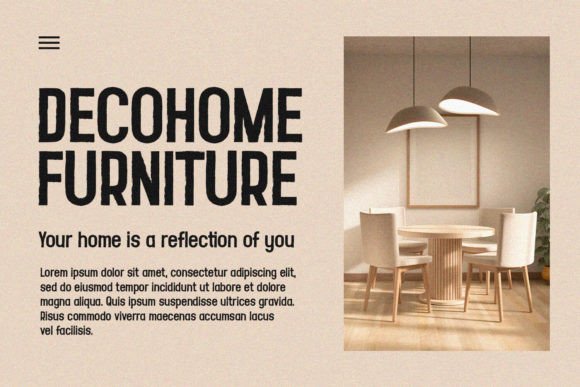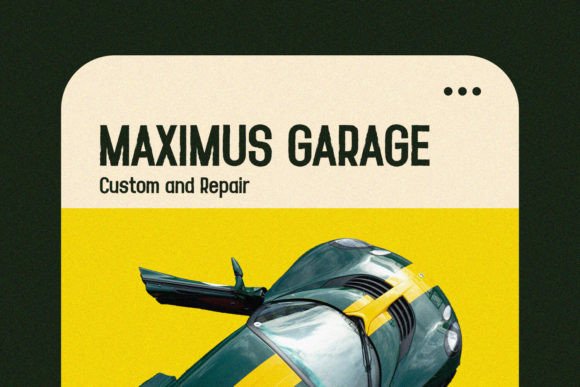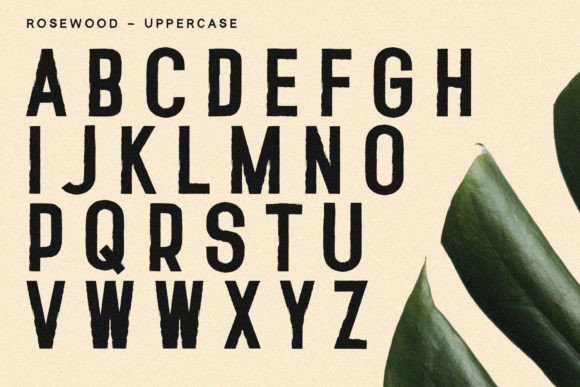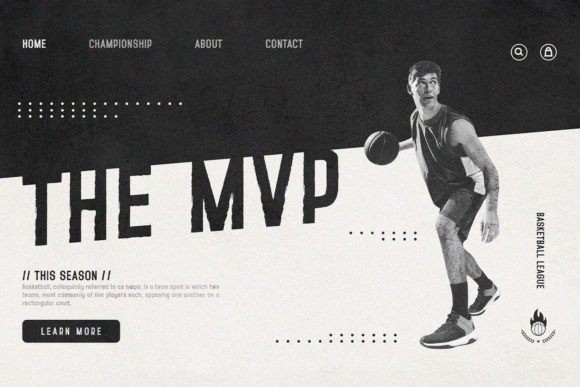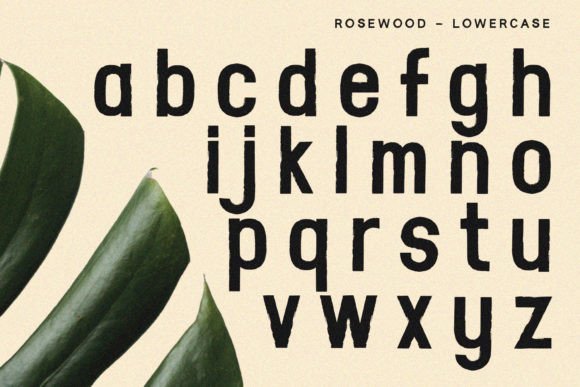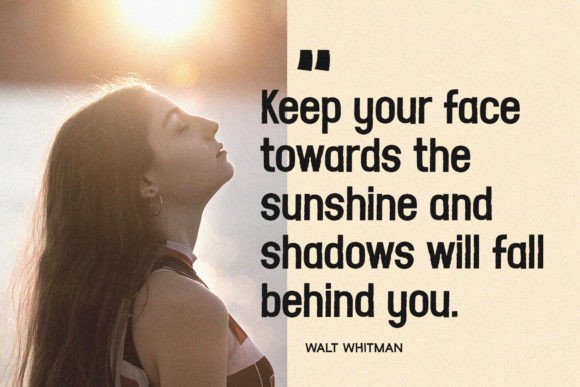
Introduction to Rosewood Font
Rosewood is a rough sans serif font with a unique and modern feel.
It will be perfectly used for Branding, Logo Design, Lettering, Logotype, Clothing, Posters, magazines, packaging, posters, shopping bags, t-shirts, book covers, photography, special events, and other design projects .
Key Features of Rosewood Font